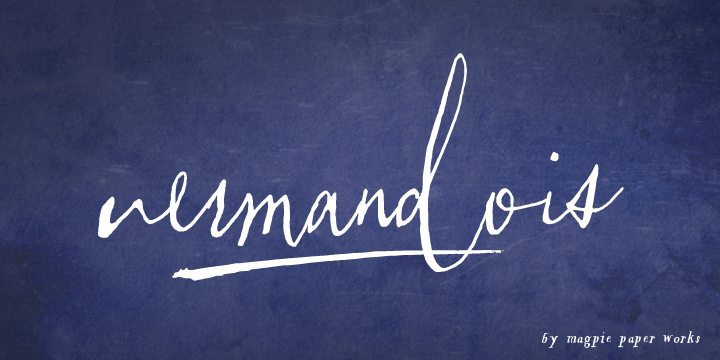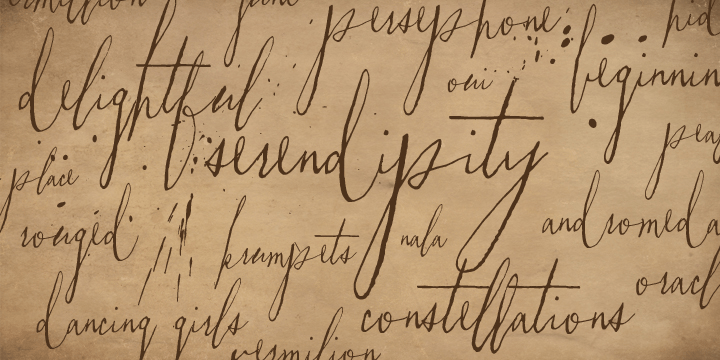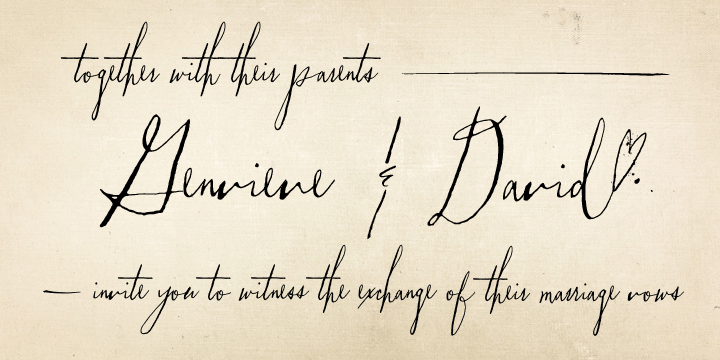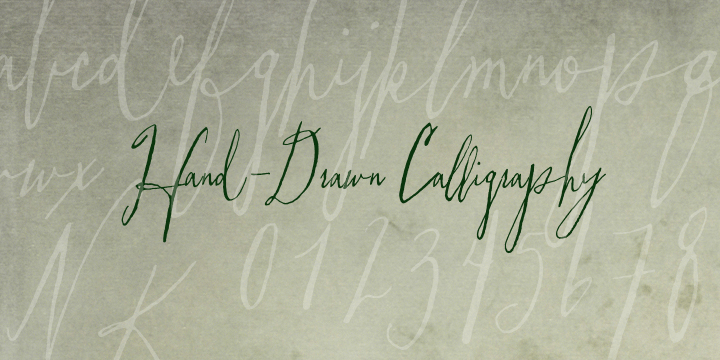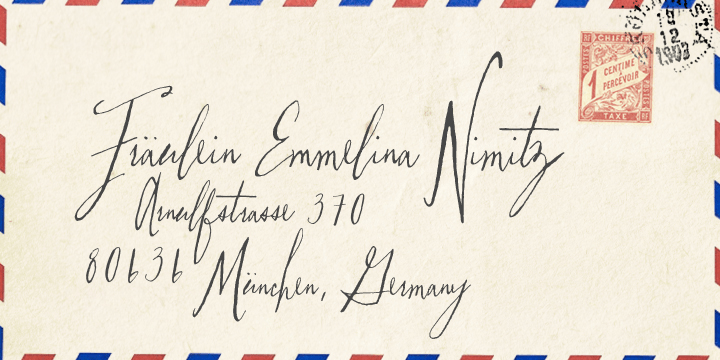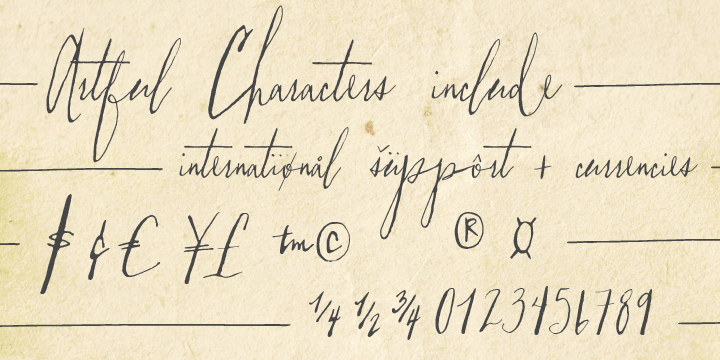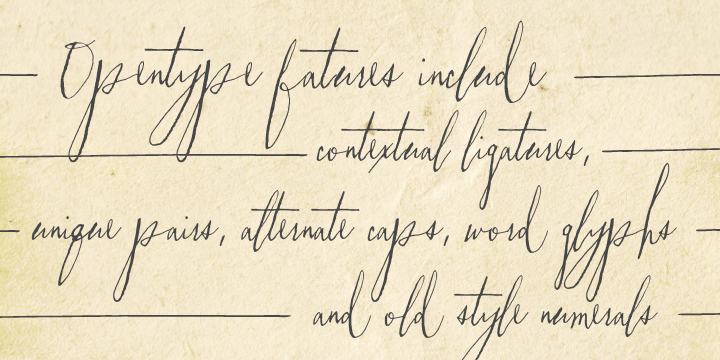
Vermandois
Font Family by Magpie Paper Works
Rough yet refined, kinetic and distinctive, the handdrawn Vermandois family mimics original calligraphy with exceptional accuracy. Perfect for correspondence, invitations, unique branding and display, Vermandois' connecting letters, caps and ink blots make a mark. Vermandois regular includes contextual ligatures and double-letter ligatures, alternate caps, preposition & title word glyphs, old style numerals, international support, currencies and fractions. VermandExtra includes 52 coordinating strokes, splashes and splatters.